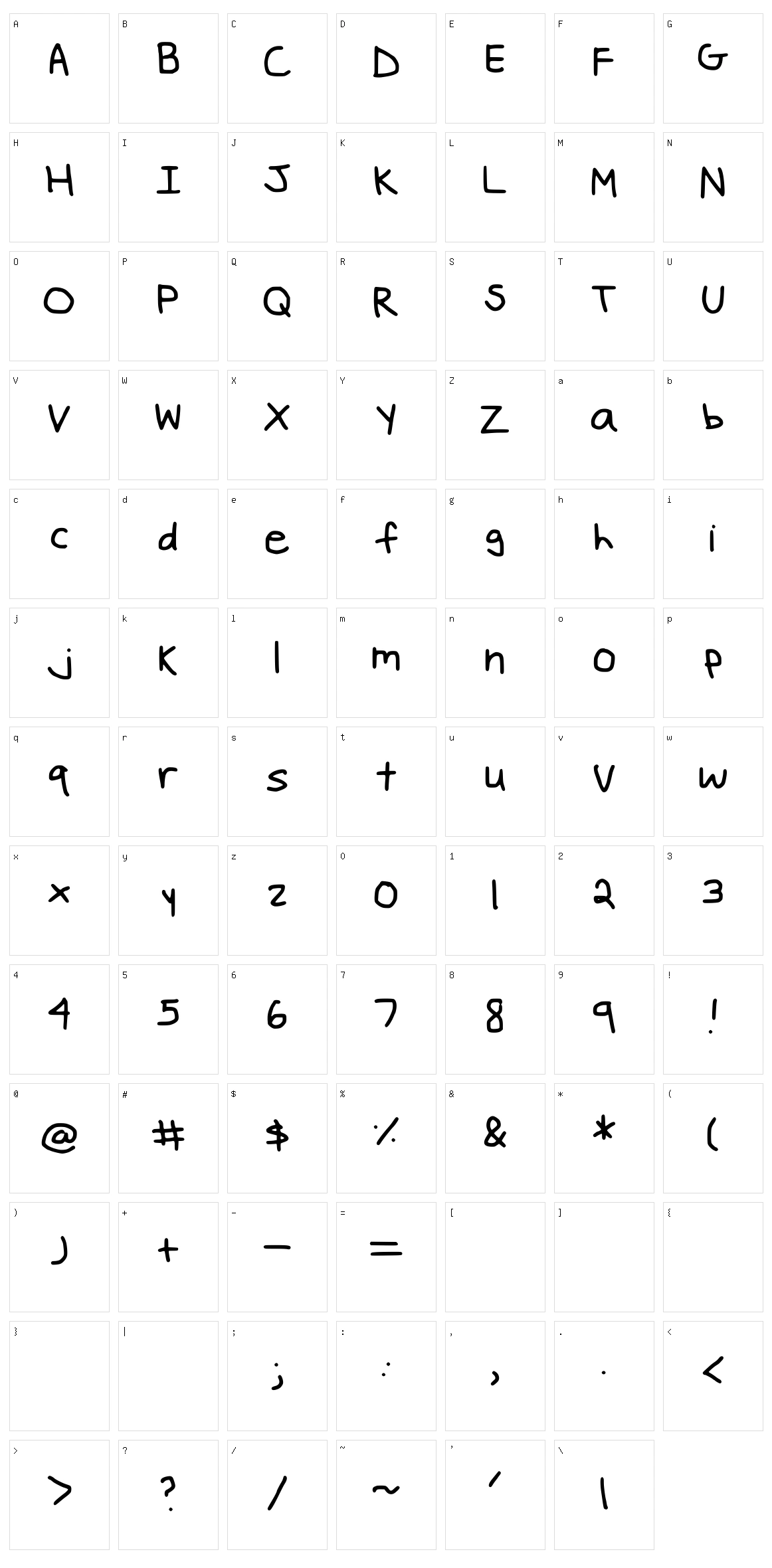
The free font Cringes is carefully designed by Andrew Zep, showcasing a thoughtful balance of creativity and usability and falls under the Script font style. When you download the ZIP file, it contains only 12.82 KB of font files, making it lightweight and quick to download. Please review the license details below to understand permitted usage and distribution rights. If license information is not available, we recommend using this font for personal projects only or contacting the author directly for commercial usage permissions.